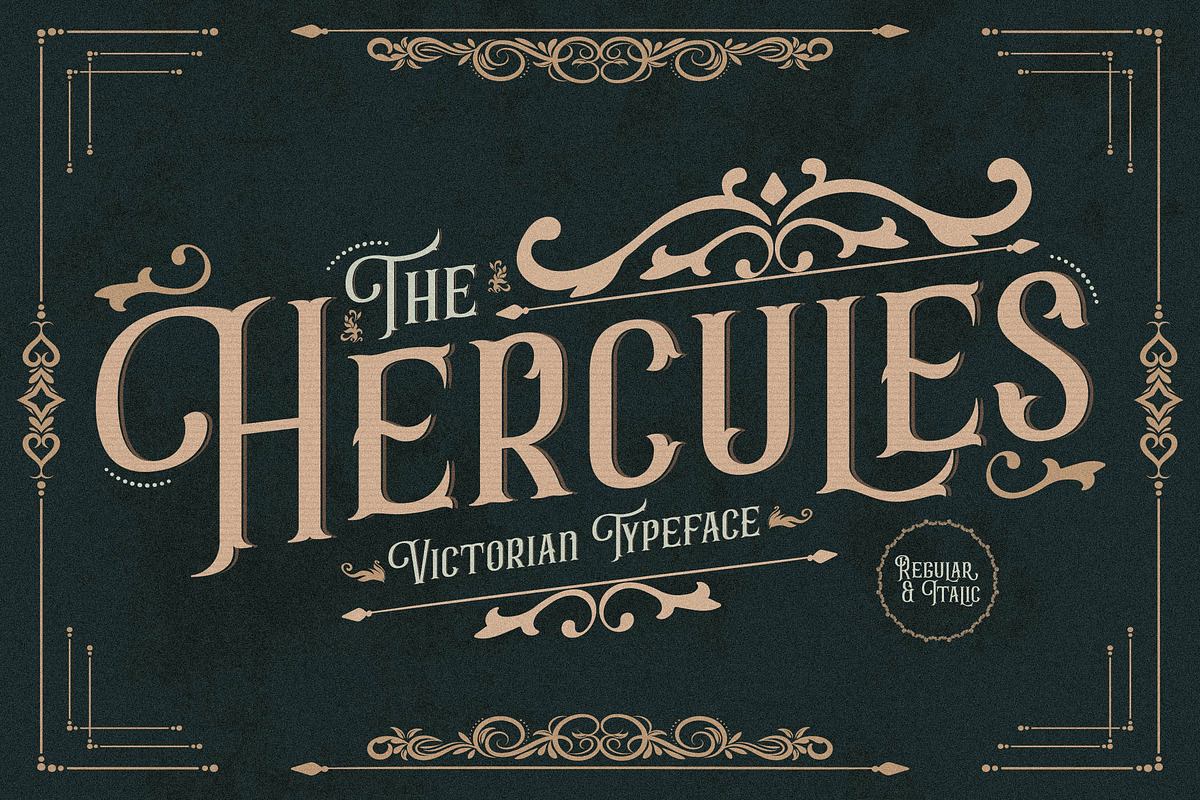
Hercules Victorian Typeface Font Free Download
Ornate, bold, and steeped in vintage drama, Hercules Victorian Typeface Font Free Download is a striking display font inspired by classic Victorian-era signage and decorative lettering. Perfect for posters, whiskey labels, logos, book covers, and themed branding, this typeface brings a strong sense of history and craftsmanship to any design.
With elaborate serifs, intricate detailing, and high-impact presence, Hercules is built for statement-making visuals. Its timeless style makes it ideal for projects that need a sense of grandeur, storytelling, or retro flair with a bold edge.